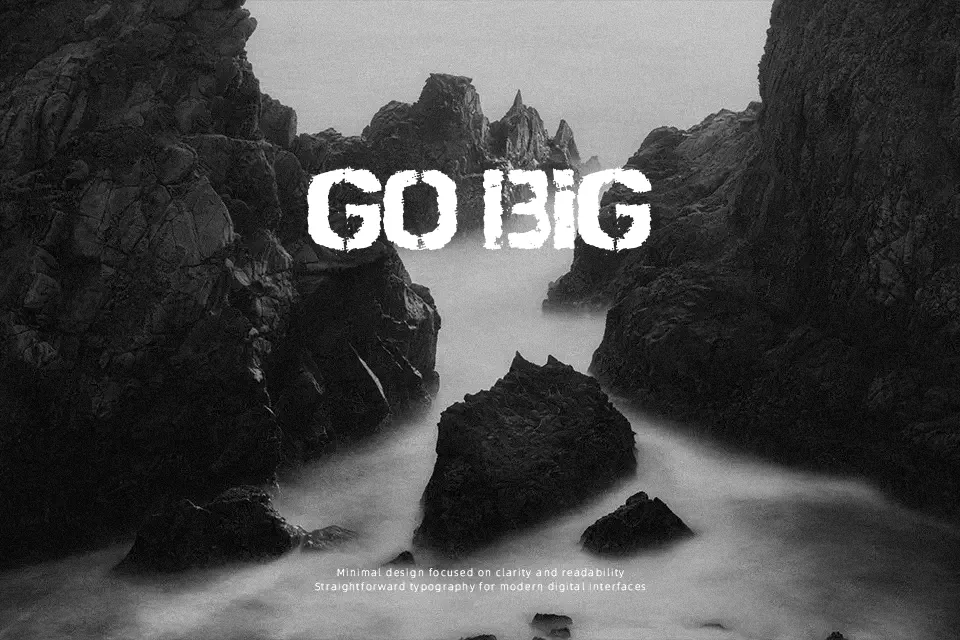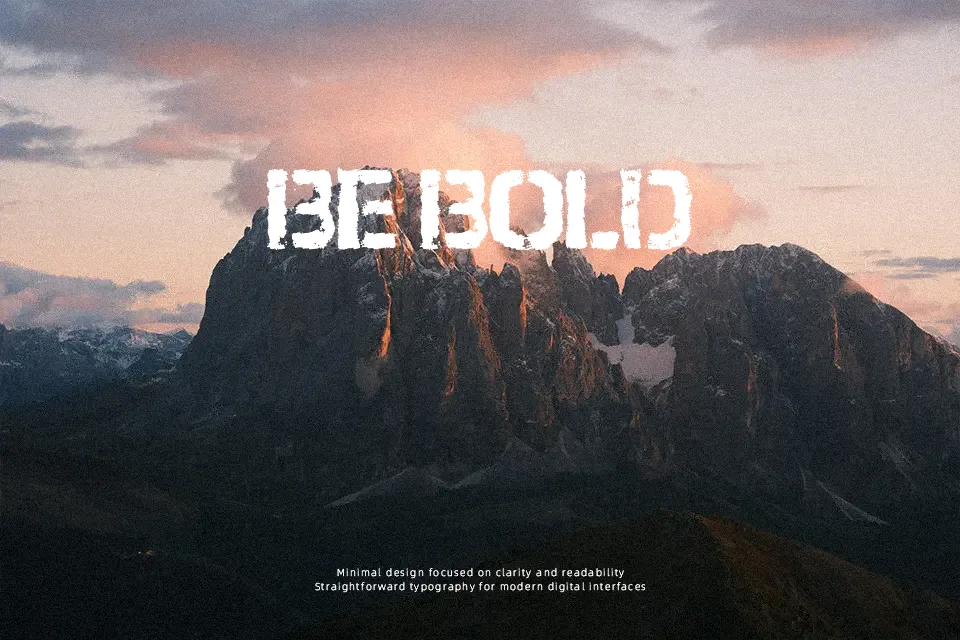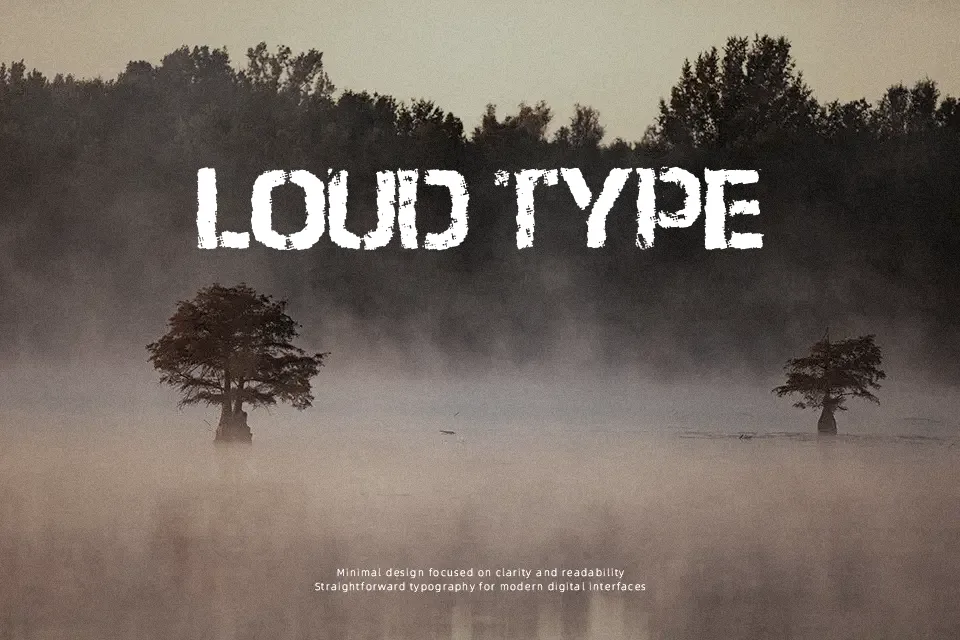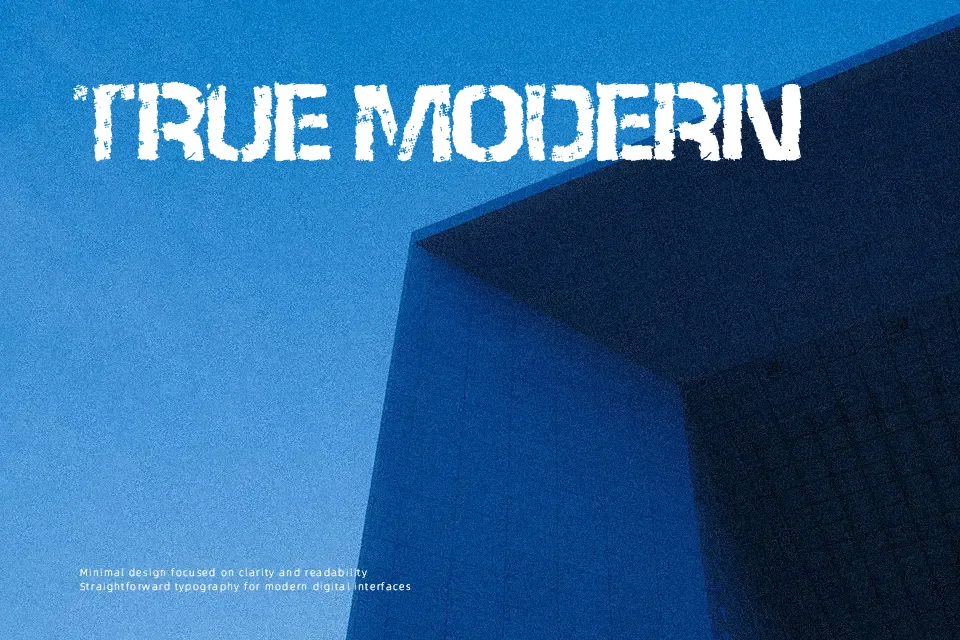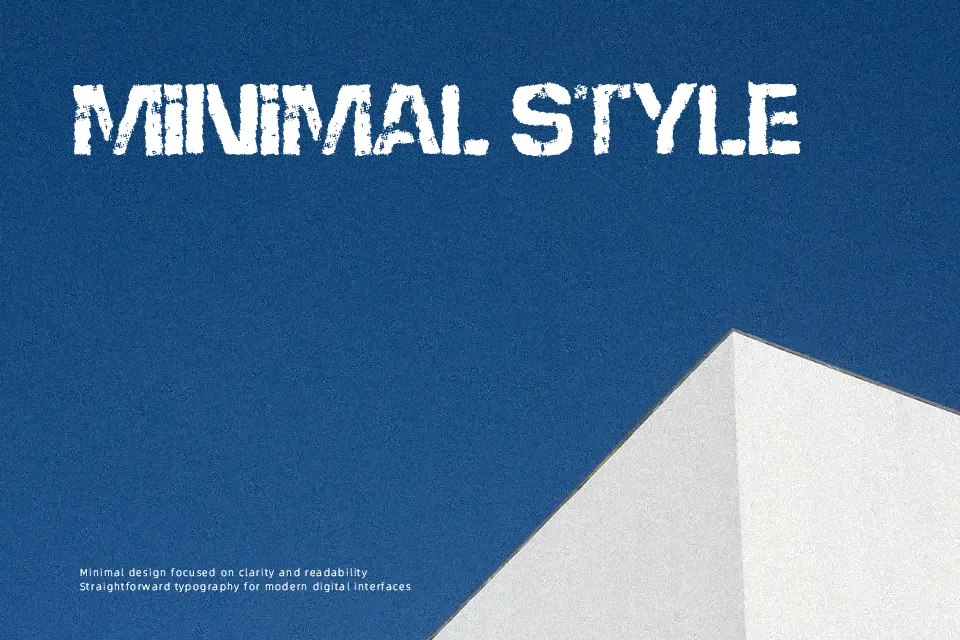
None Shall Pass Font
None Shall Pass Font uses heavy stencil-cut letterforms with firm vertical strokes, angular breaks, and compact, sturdy proportions. The characters carry a consistent uppercase-driven rhythm, while the cut sections create clear separation between parts of each glyph. Spacing appears controlled for short lines and bold display settings rather than dense copy. It suits posters, apparel graphics, labels, and title treatments that need an industrial or military-influenced tone. The strong strokes help retain visibility in large headlines, but the interrupted forms can slow recognition in smaller text. This typeface is most effective when kept brief and given enough scale.
Best For: military-inspired poster headlines,apparel graphics,product labels,film title cards
Perfect for advertising, film, and headline, with a bold and decorative style.